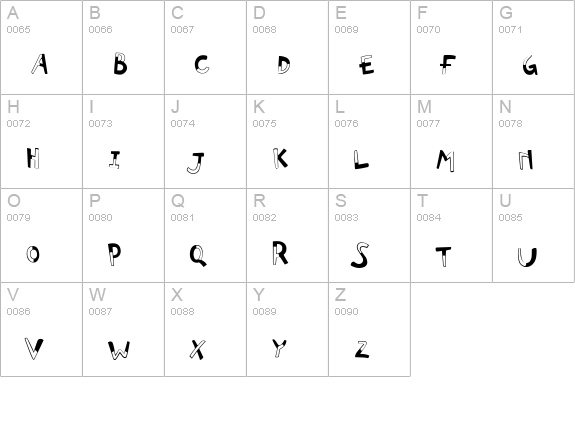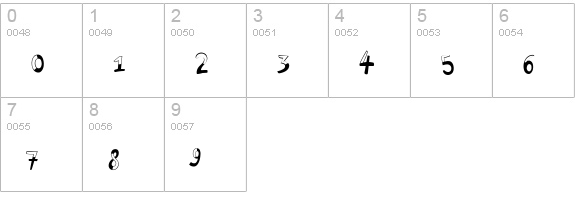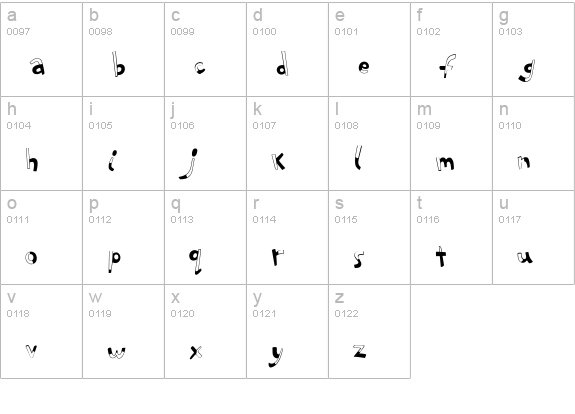
PFPlayskoolPro-Halfull Font Details
The PFPlayskoolPro-Halfull font is a whimsical and playful typeface that is perfect for adding a touch of charm to your designs. With its rounded edges and friendly appearance, this font brings a sense of fun and creativity to any project. Whether you're working on a children's book, a poster, or a logo, PFPlayskoolPro-Halfull will bring a smile to your audience's face. Best of all, this delightful font is available for free download at FontsMarket.com. So go ahead and add a dash of joy to your designs with PFPlayskoolPro-Halfull font today!